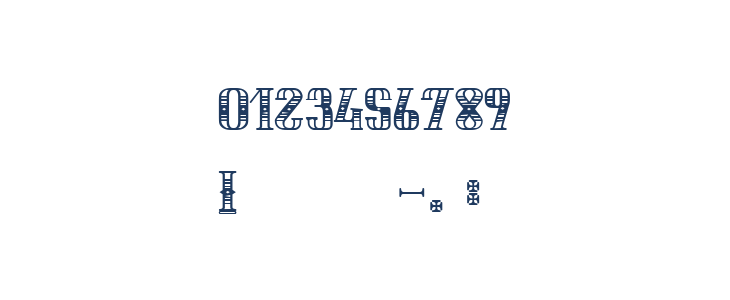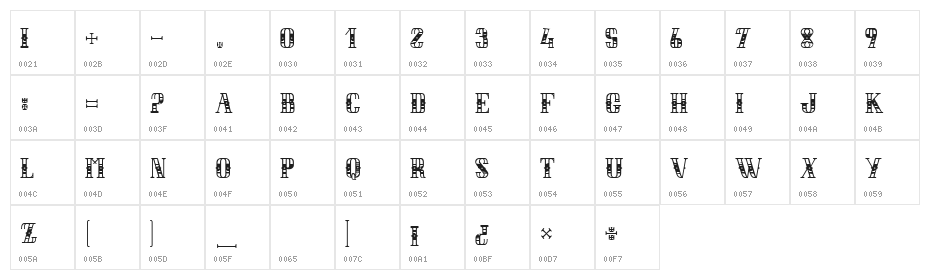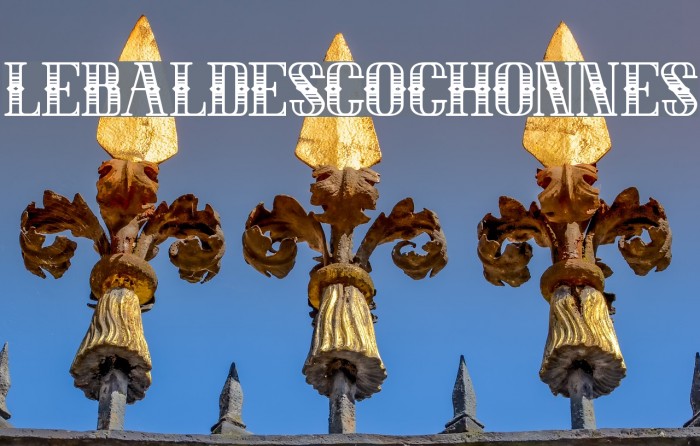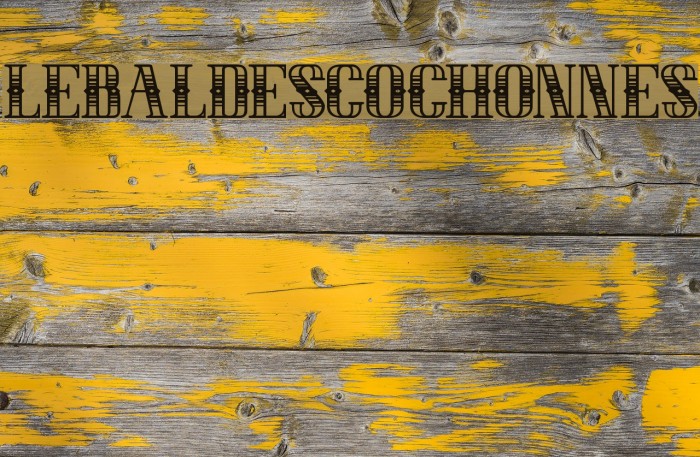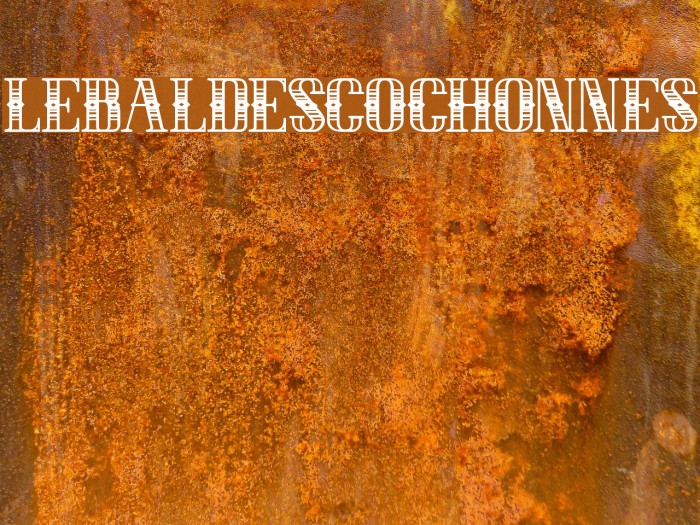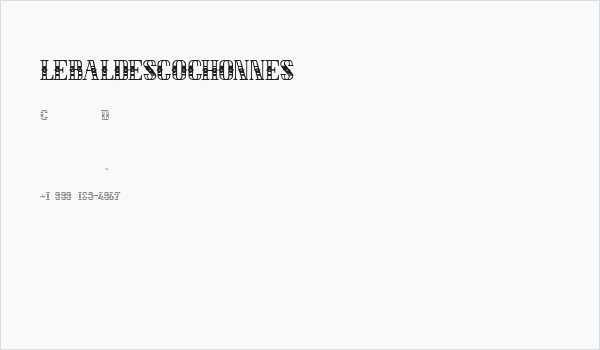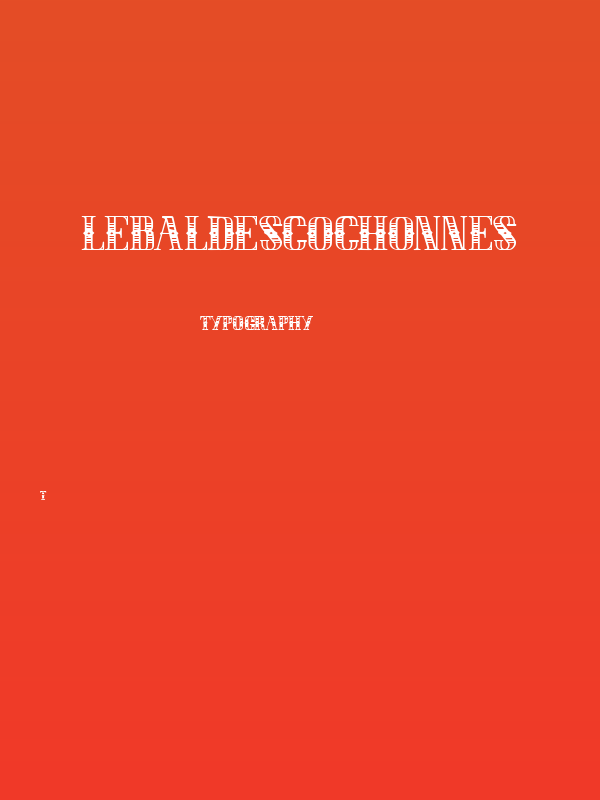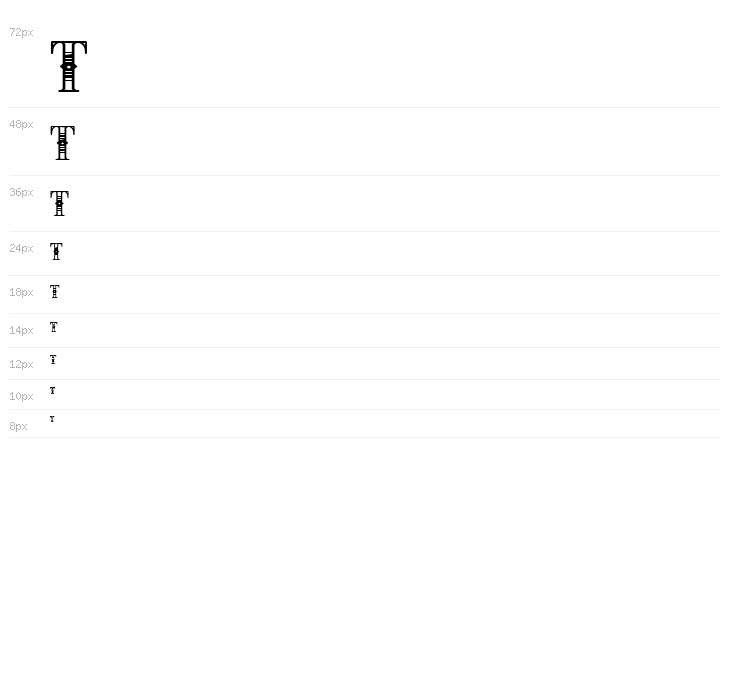
LEBALDESCOCHONNES Font
LEBALDESCOCHONNES Description
This font features a bold, decorative style with a unique striped pattern running through each character. The uppercase letters are prominently designed with a strong presence, making them ideal for attention-grabbing headlines. The numerals and special characters maintain the same decorative theme, ensuring consistency across all text elements. The font's intricate design suggests a vintage or retro influence, reminiscent of old-fashioned circus or marquee lettering. Its distinct appearance makes it suitable for projects that require a touch of nostalgia or whimsy.
| Proposed Projects | Ideal for posters, event invitations, branding for retro-themed products, or any design needing a vintage flair. |